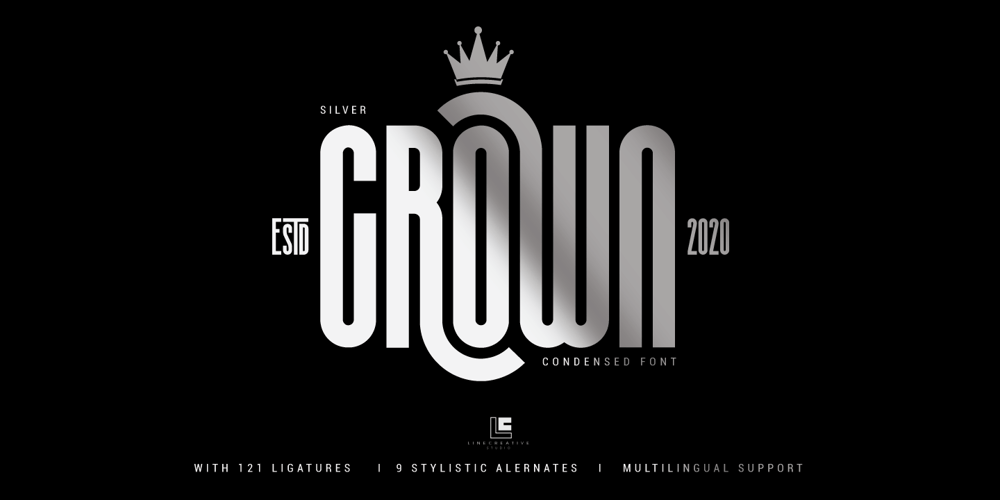
Silver Crown
Silver Crown font
Silver Crown Font Family was designed by Ari Juanda and published by Linecreative. Silver Crown contains 1 styles and family package options. Silver Crown is an Ultra Condensend display font with minimalist characters. It’s perfect for logos, name cards, magazine layouts, headers, or even large scale artwork.Silver Crown, a clean sans serif, offers you:1. Upper and Lowercase characters (All Caps)2. Ligatures (121 characters) and Stylistic alternates (9 Characters)3. Multilingual Support (Latin Western Europe), Numbers and Punctuation